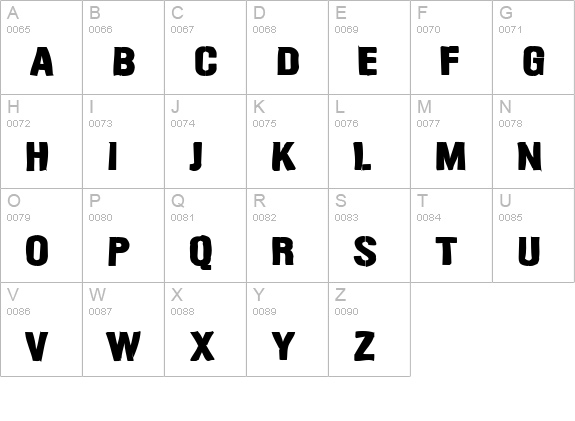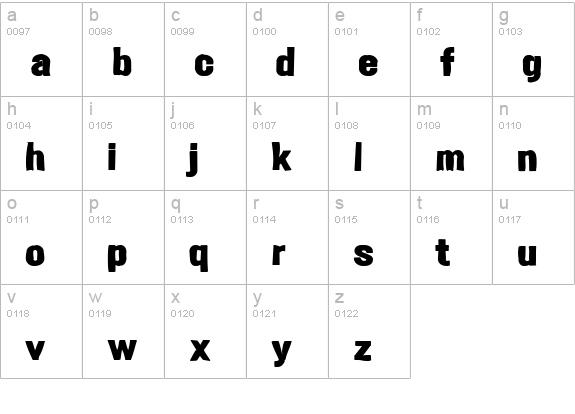
Gunplay Ink Font Details
Gunplay Ink font is a bold and edgy typeface that exudes a sense of strength and modernity. Its rugged and hand-drawn appearance gives it a unique and artistic vibe, perfect for making a statement in your design projects. The rough edges and uneven strokes of Gunplay Ink font add a touch of authenticity and character to any text it is applied to. What's even better is that Gunplay Ink font is available for free download at FontsMarket.com. This means you can easily add this eye-catching font to your collection without any cost. Whether you're working on a poster, logo, or any other creative project, Gunplay Ink font will bring a dynamic and energetic feel to your designs. Download Gunplay Ink font now and unleash your creativity with this striking typeface.